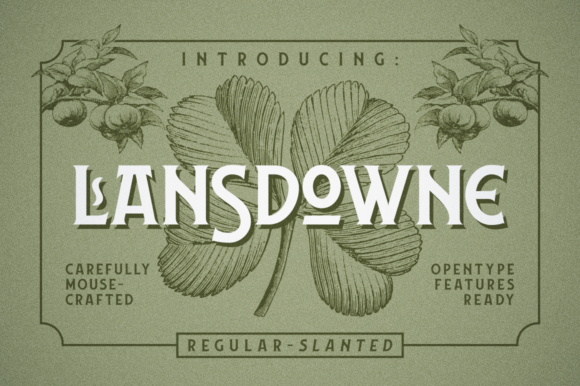
Enter the world of Lansdowne, a display font family that captures the essence of vintage aesthetics with a modern twist. With its bold, strong exterior and sharp, clean lines, Lansdowne exudes a captivating charm that is sure to leave a lasting impression.
As you delve into the Lansdowne family, you'll discover two captivating variations: Lansdowne and Lansdowne Slanted. Each variation possesses a distinct personality while maintaining the cohesive charm of the family. The upright Lansdowne font exudes confidence and stability, while the slanted variation adds a touch of dynamism and movement to your designs.
Meticulously crafted for optimal reading pleasure, Lansdowne excels in a wide range of projects. Whether you're crafting eye-catching headlines, designing marketing materials, or creating stunning social media graphics, Lansdowne will elevate your work with its timeless appeal.
Embark on a creative journey with Lansdowne, a font family that seamlessly blends the allure of the past with the demands of the present. Its versatility and captivating charm make it an indispensable tool for designers seeking to create truly memorable designs.